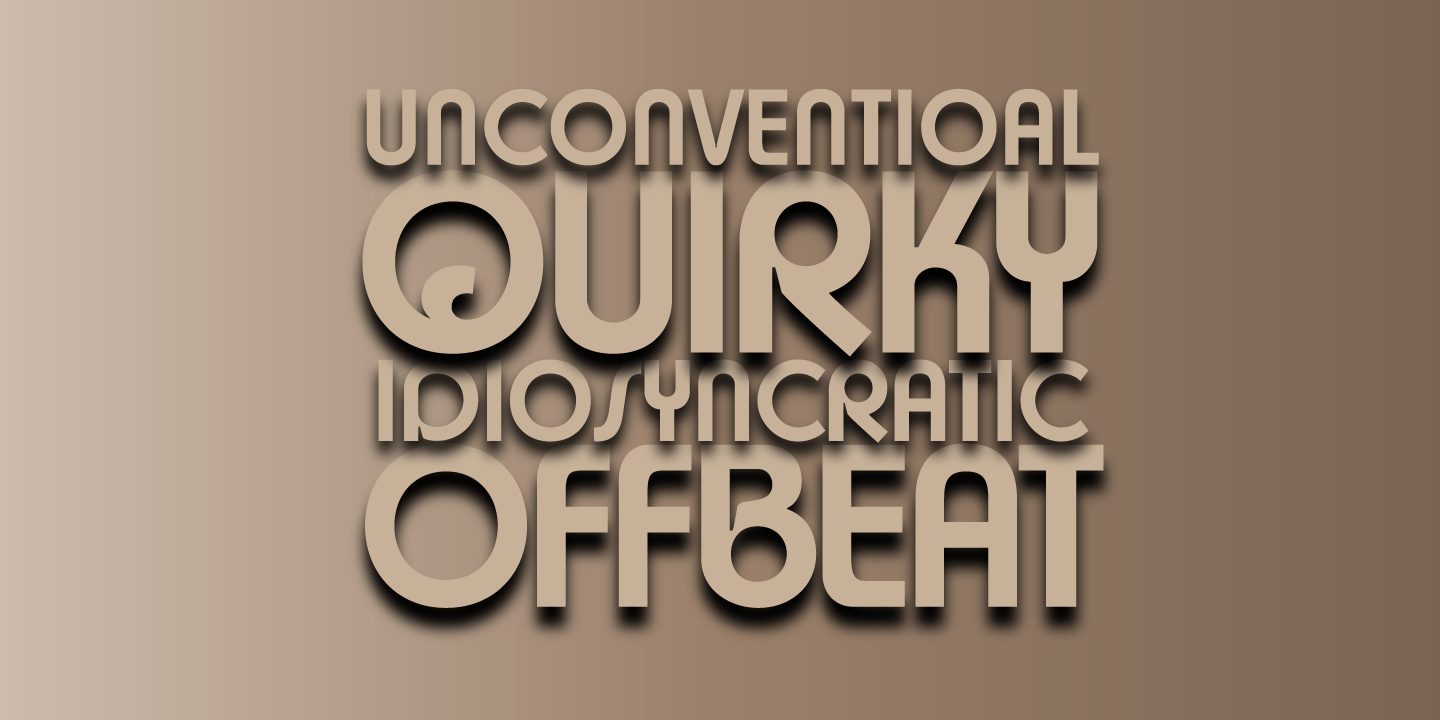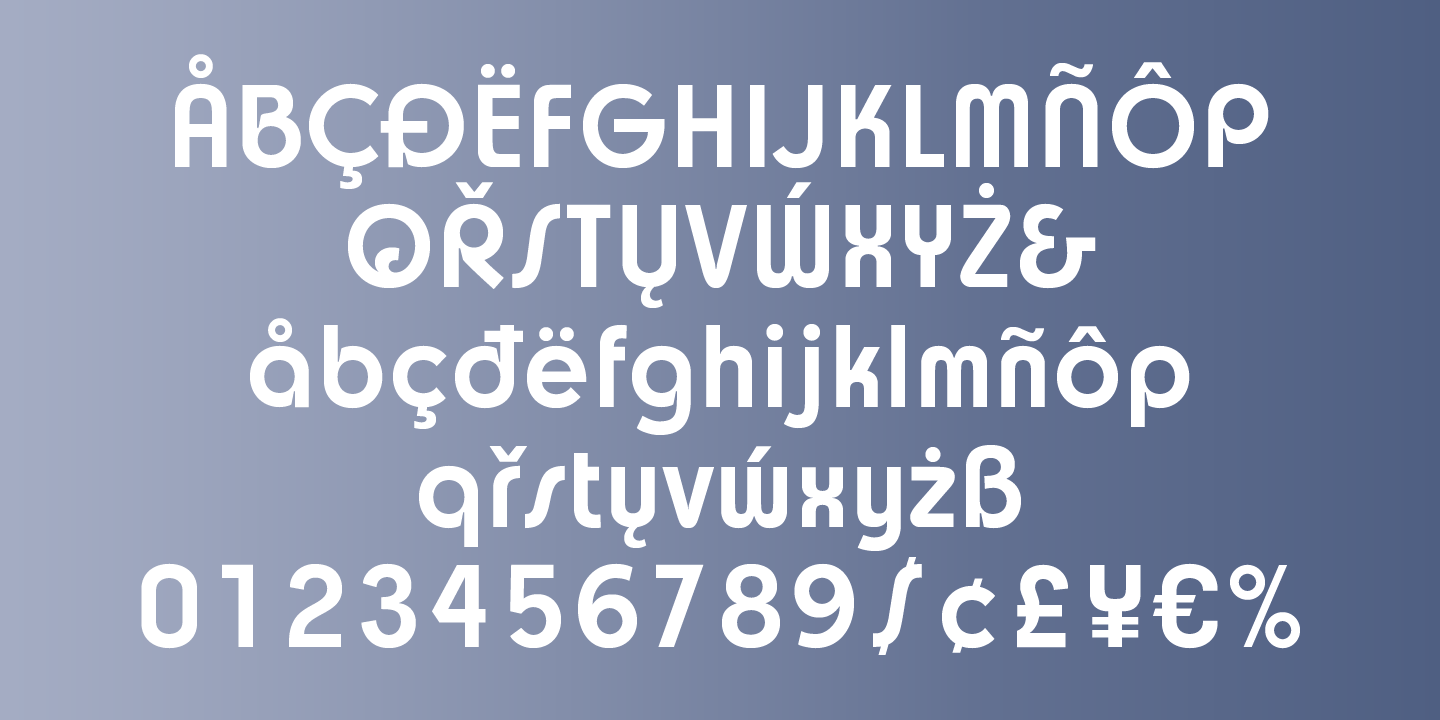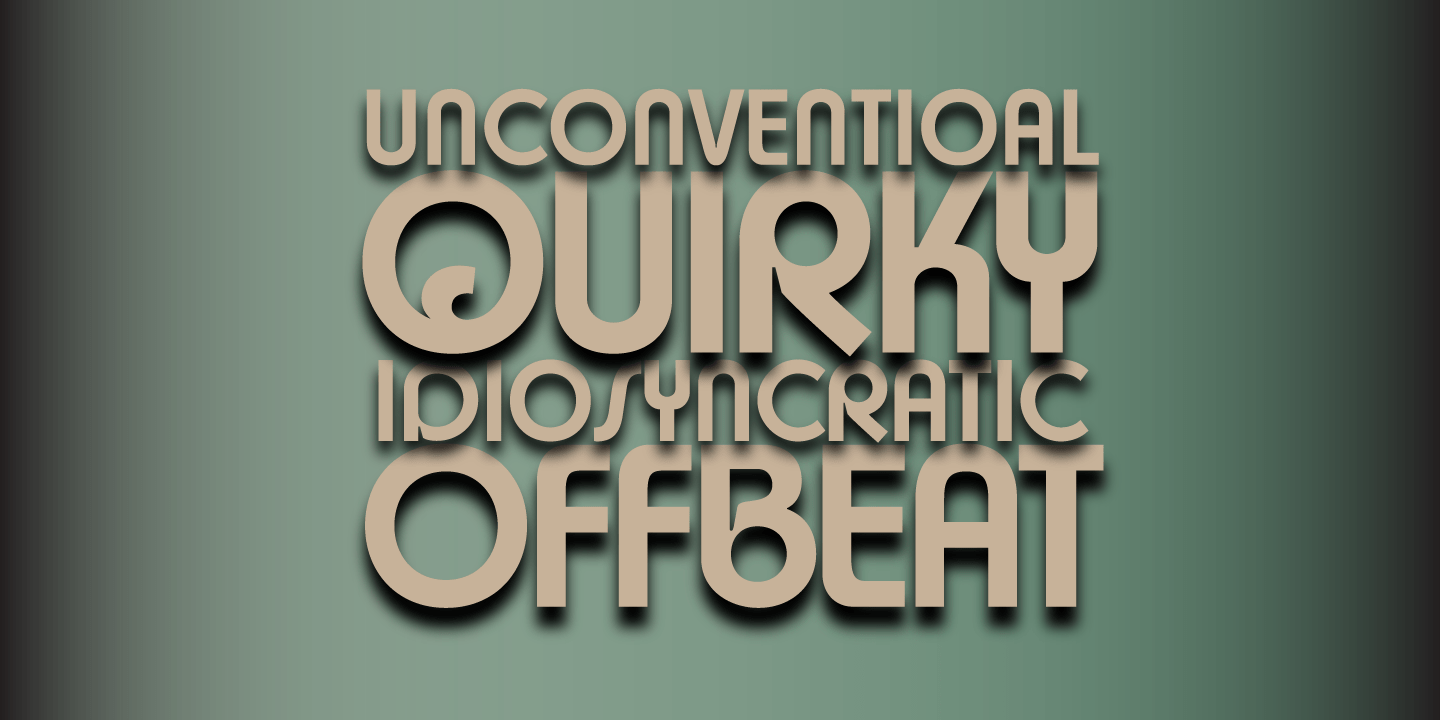
Churchward Design Regular
Churchward Design Regular is Joseph Churchward's take on the classic geometric funk type aesthetic of the early 1970's. This font represents a very usable text weight that still possesses the signature quirkiness that only Joseph Churchward could conjure up!
Churchward Design Regular supports an extended character set that covers many western and central European languages as well as both proportional and tabular figures.